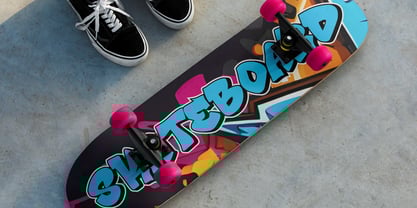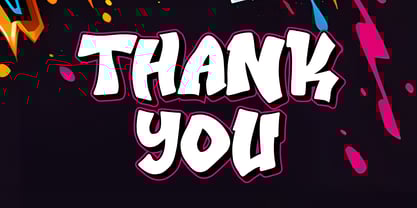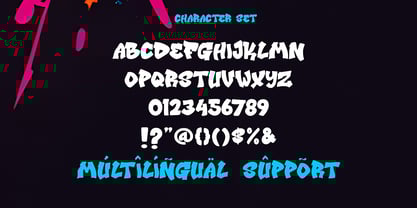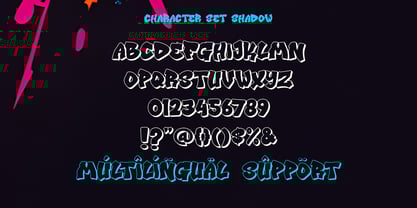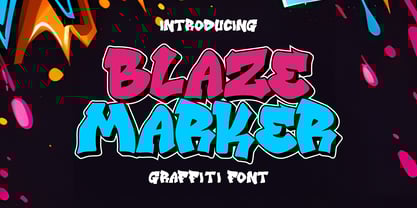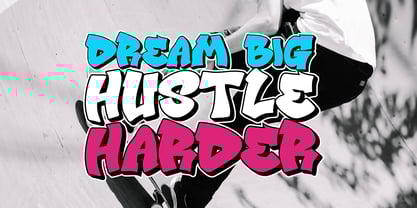
Blaze Marker
by Sipanji21
The Blaze Marker Font Family was designed by Sipanji and published by Sipanji21. Blaze Marker contains 2 styles and family package options.
Blaze Marker is a bold and expressive handwritten marker font designed for creative rebels, street artists, and graphic designers. With its raw, energetic strokes and authentic marker texture, Blaze Marker adds instant attitude to your designs. Perfect for urban branding, streetwear, album covers, poster titles, YouTube thumbnails, and anything that needs a punch of graffiti-inspired style. This font is ideal for digital creatives who want to bring bold, personal energy to their projects. Blaze Marker is PUA encoded, includes multilingual support, and works great in both print and digital formats.